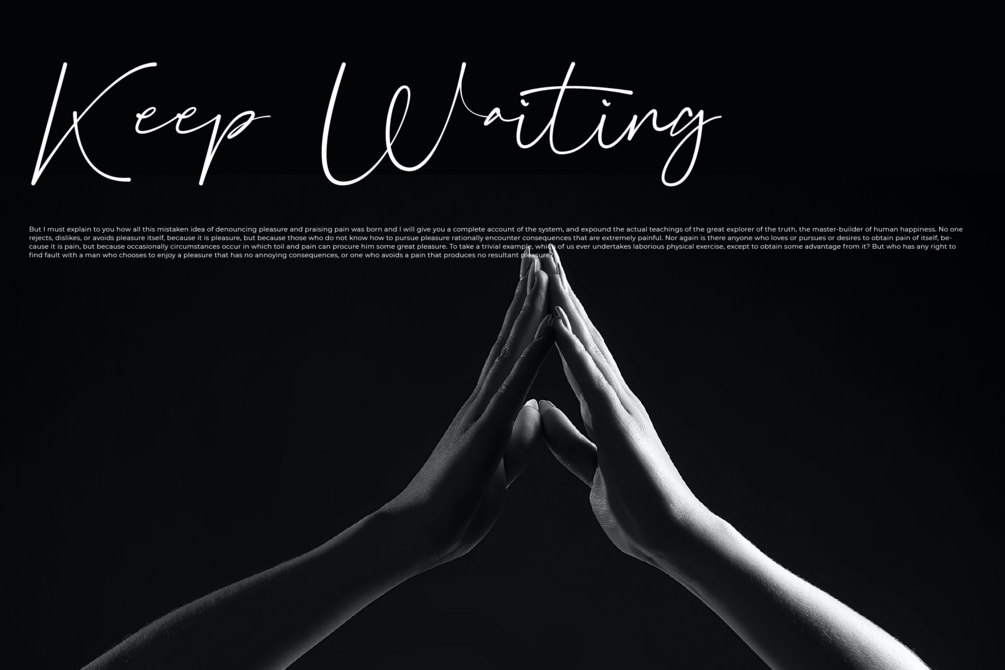
Ettlora Font
Ettlora is a script font that comes with a signature style. suitable for branding, social media, and so on. contains standard English letters, numbers, punctuation, and several accents that support multilingualism.